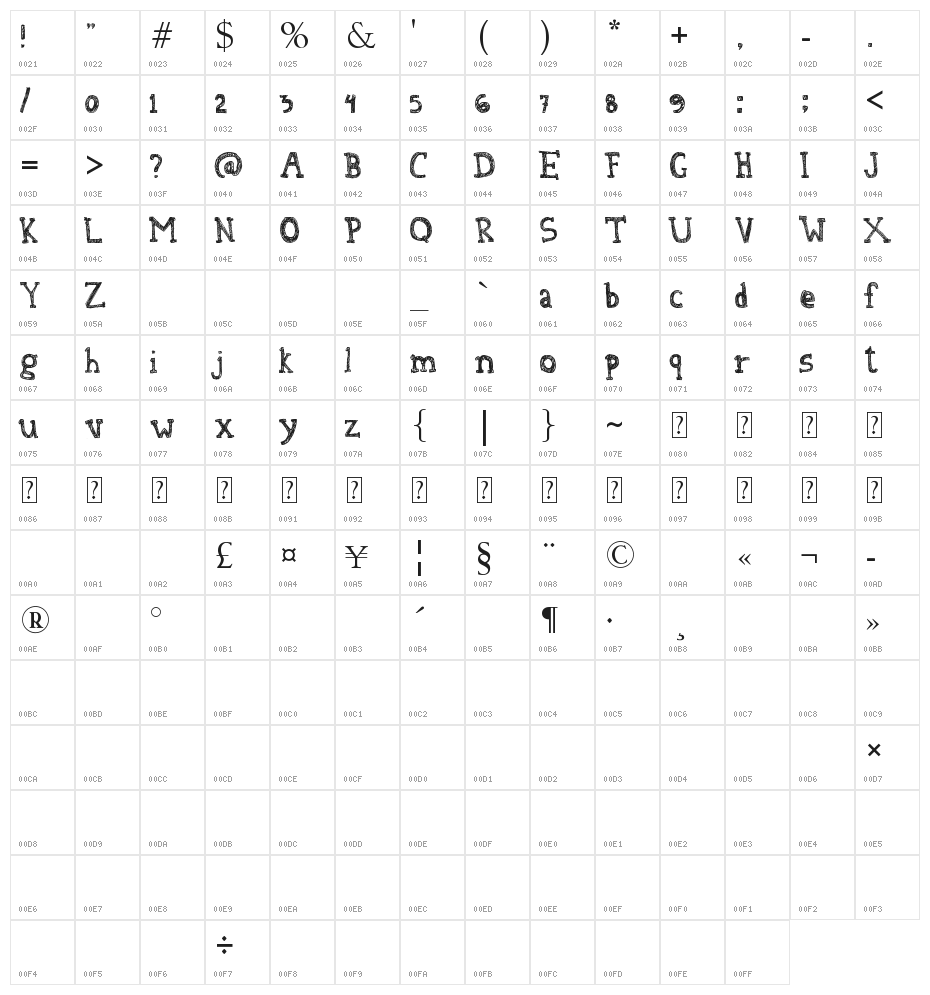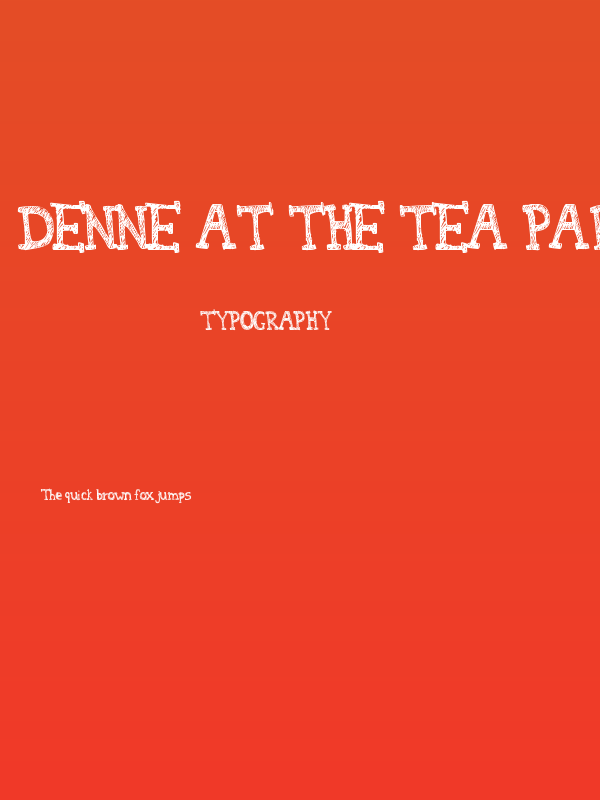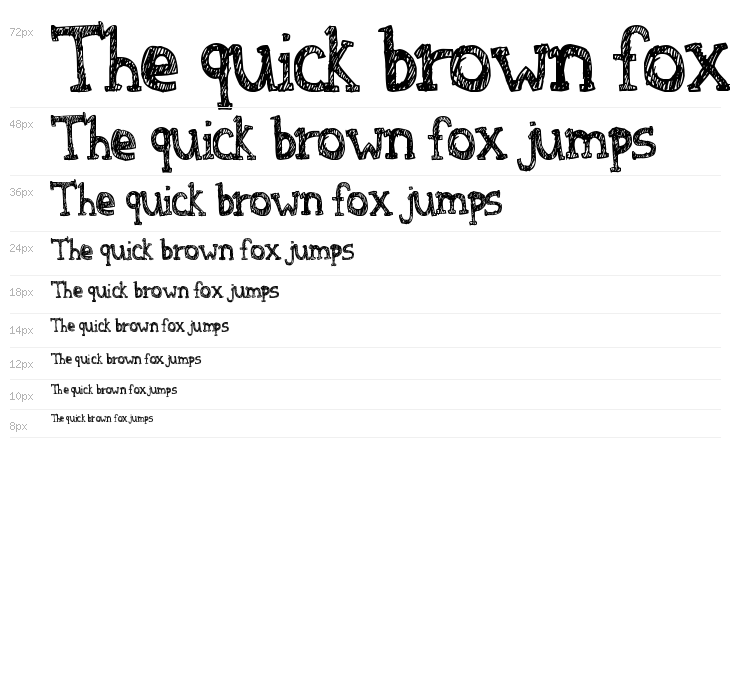
Denne At The Tea Party Font
Denne At The Tea Party Description
This font features a playful and whimsical design, characterized by its hand-drawn, sketch-like appearance. Each letter is filled with intricate cross-hatching, giving it a textured and artistic feel. The uppercase and lowercase letters maintain a consistent style, with slightly irregular edges that enhance its casual and informal look. Numbers and special characters follow the same artistic theme, making it suitable for creative projects. The overall design is bold and eye-catching, perfect for adding a touch of fun and creativity to any text.
| Proposed Projects | Ideal for children's books, creative posters, playful branding, and artistic invitations. |